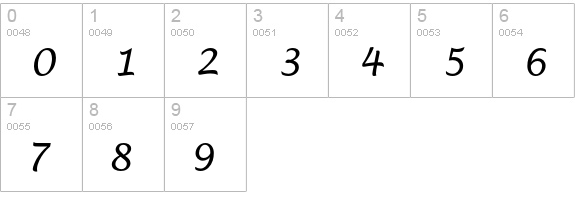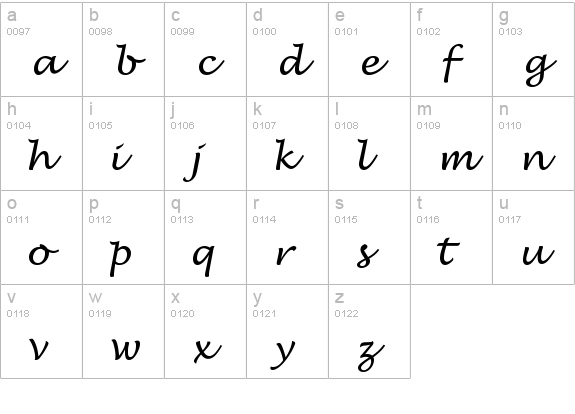
LucidaHandwritingEF Font Details
Lucida Handwriting EF is a beautifully crafted font that exudes elegance and sophistication. Its flowing strokes and delicate curves give it a charming and graceful appearance, making it perfect for projects that require a touch of class. The font's distinctive style evokes a sense of handwritten charm, adding a personal and unique touch to any design. Best of all, Lucida Handwriting EF is available for free download at FontsMarket.com. This means you can easily access and use this stunning font in your projects without any cost. Whether you're creating invitations, greeting cards, or any other design that calls for a touch of finesse, Lucida Handwriting EF is sure to elevate your work to the next level. Don't miss out on this beautiful font - download it for free today and add a touch of elegance to your designs!